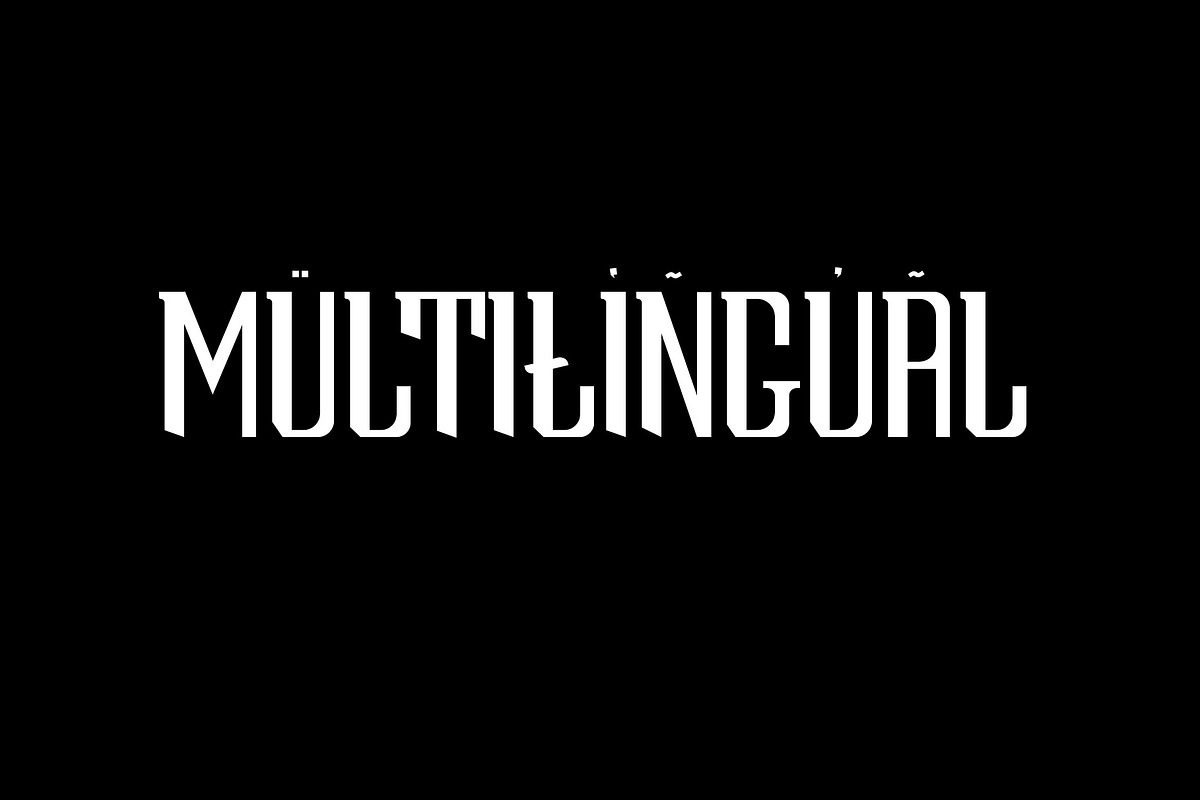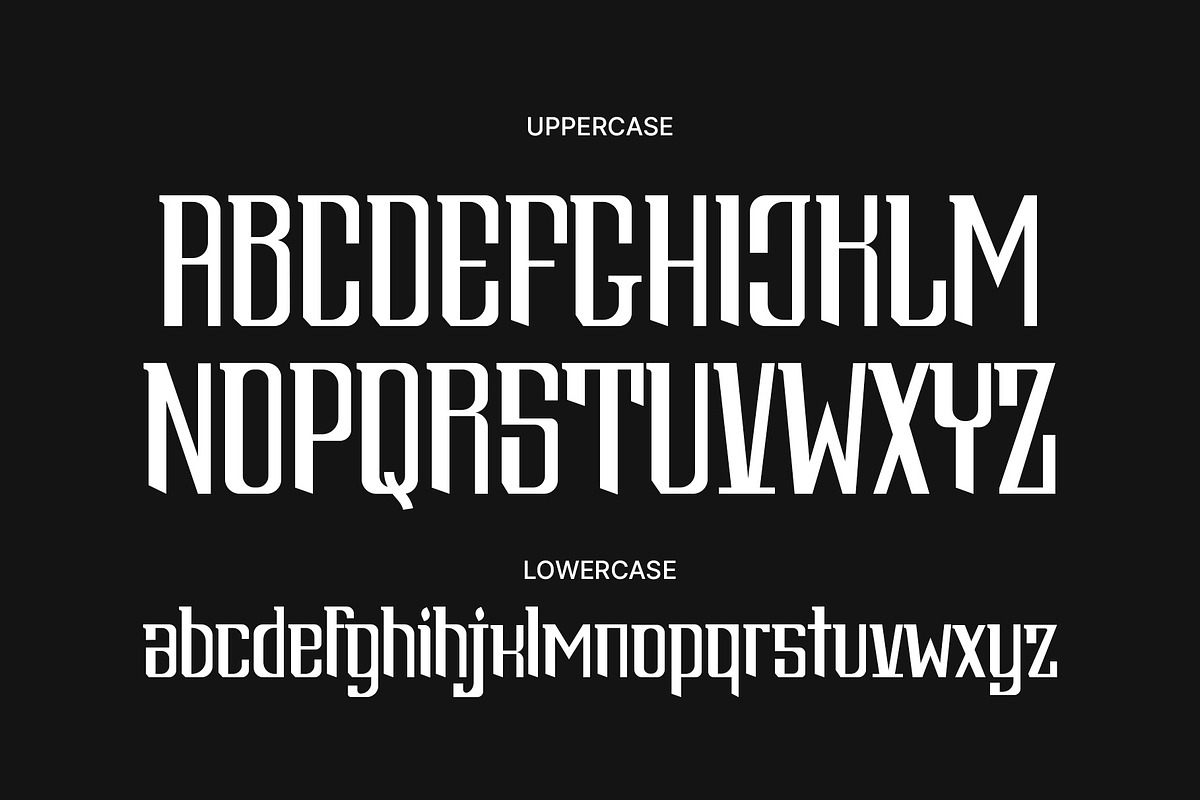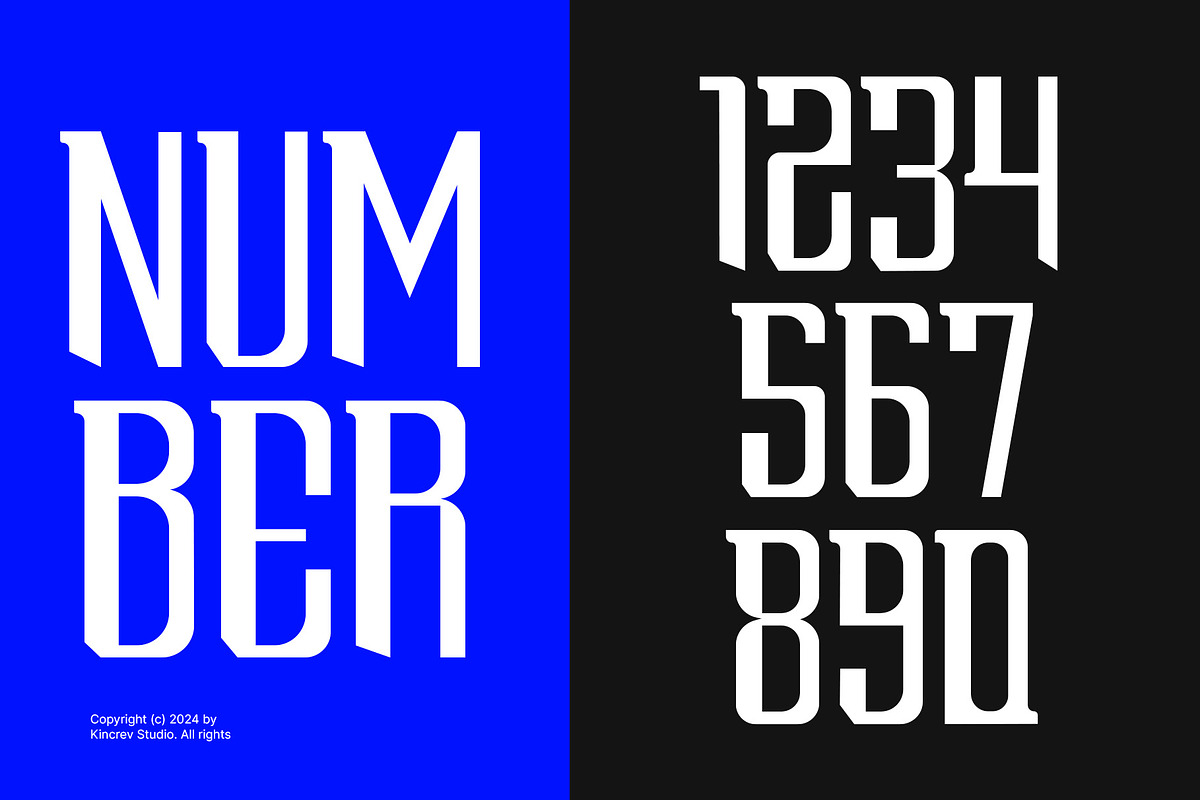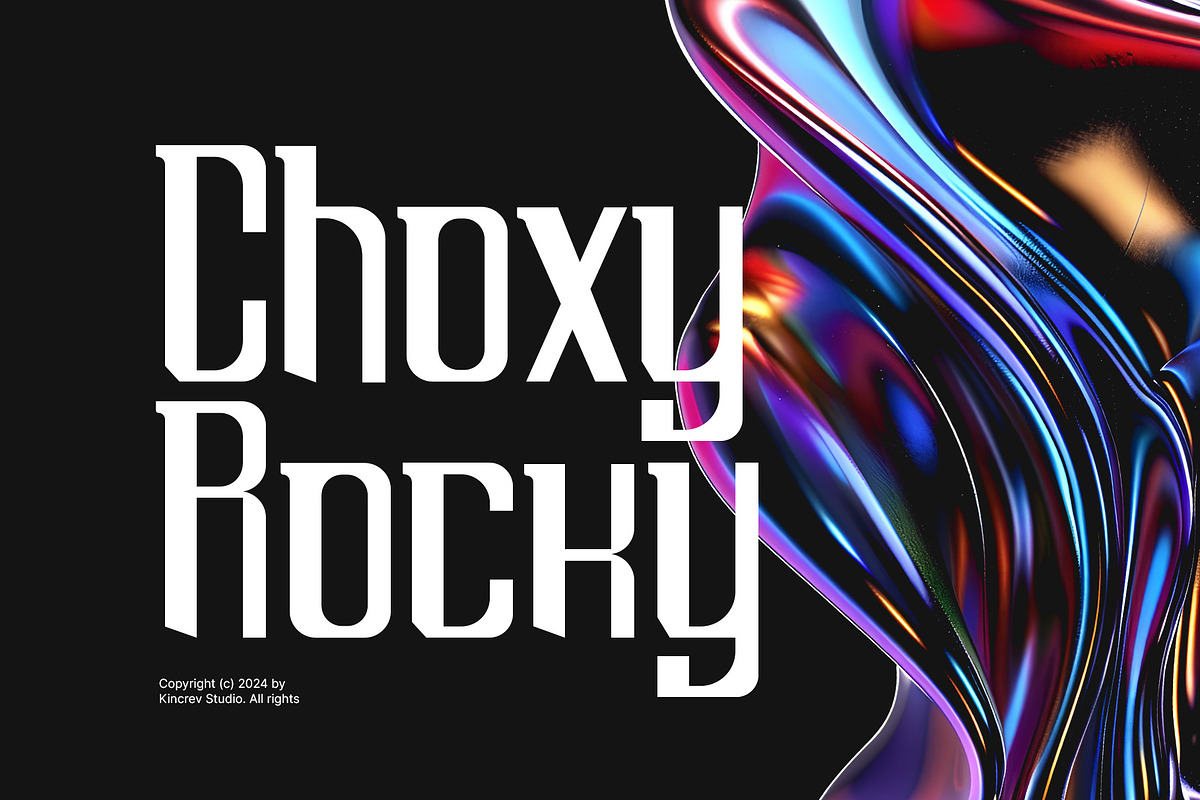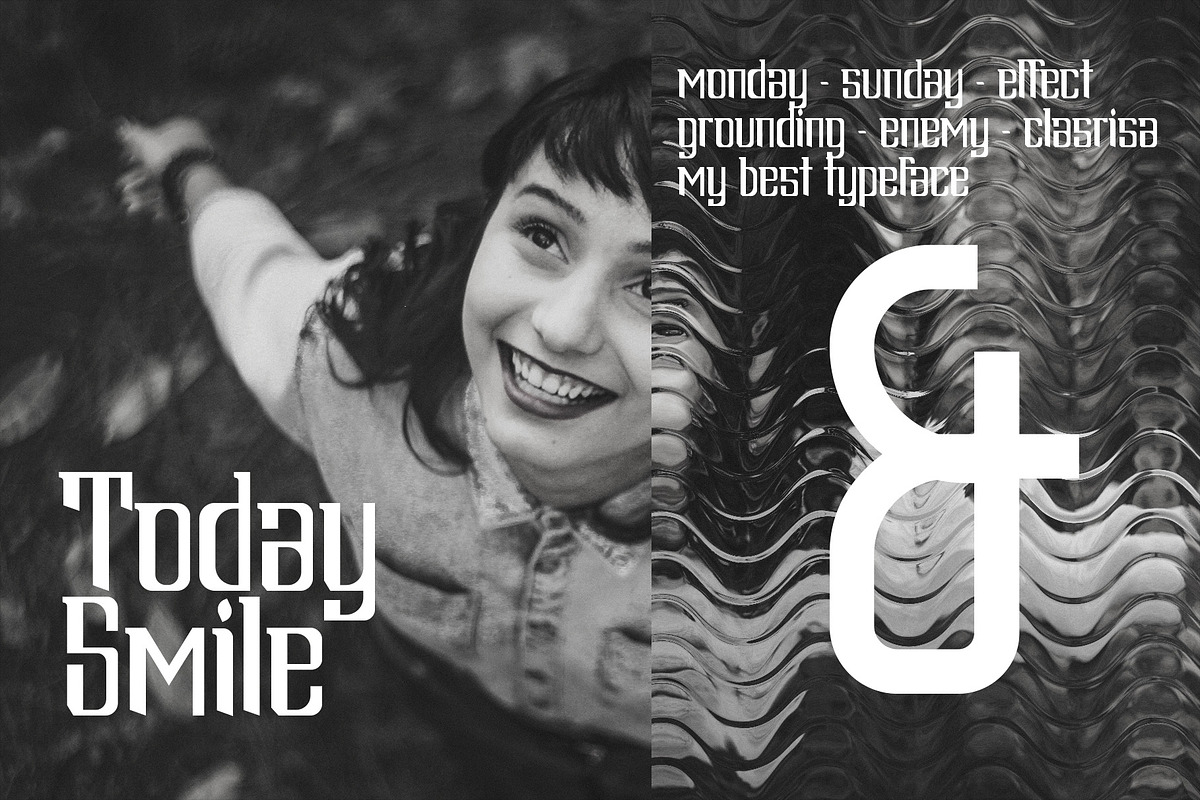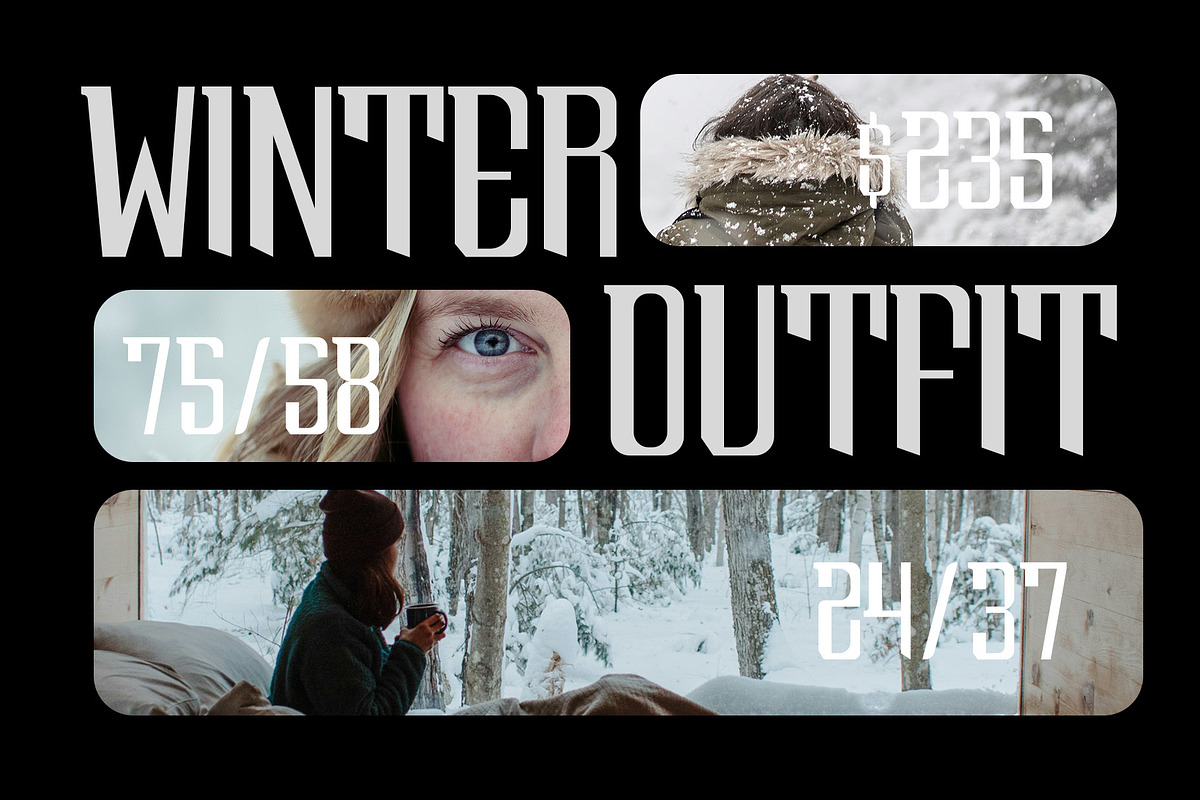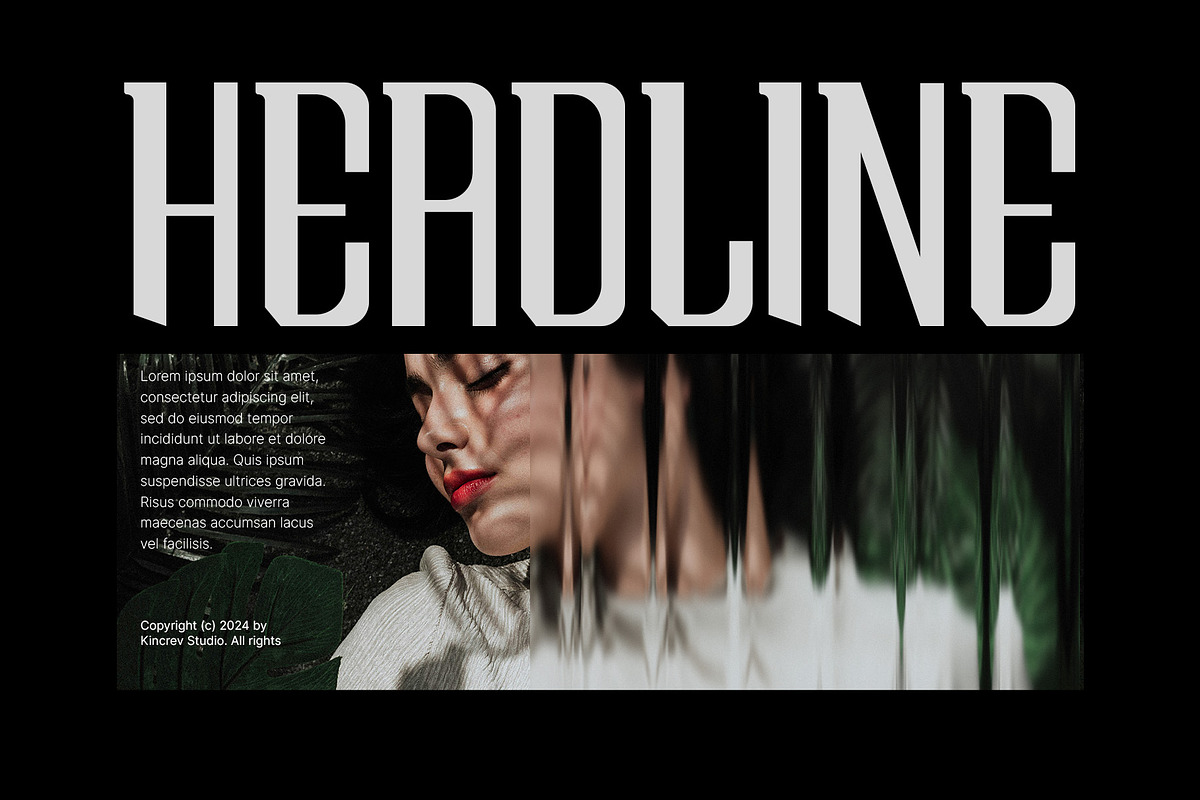
Choxy Rocky
Hello, Everyone! Ready to make your branding design outstanding? If you need to create a stylist, unique, and modern sporty look for your business, work on a poster for an event, or whatever your projects are, Choxy Rocky is the perfect one for you.
Choxy Rocky, a slab serif font is font for you to get your designs with stylist, unique, and modern sporty look. It is made in uppercase & lowercase letters which are simple and easy on the eyes and nice to look at, and easy to read. This font is designed to bring your brandings to life and add a touch of sporty modern, bold, fun and style.
Choxy Rocky fits for any design projects, such as posters, banners, logos, book covers, album covers, quotes, invitations, greeting cards, name cards, headings, printed products, merchandise, social media, etc. Find out more ways to use this font by taking a look at the font preview.